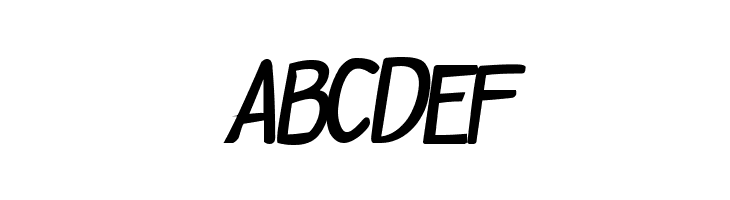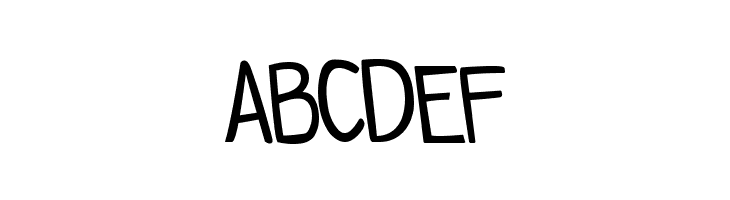
comicdouche Font
Font by Press Gang Studios
A playful, comic-style font with bold, irregular characters.
comicdouche Bold Font
Font by Press Gang Studios
A bold, playful font with a comic-like, dynamic style.